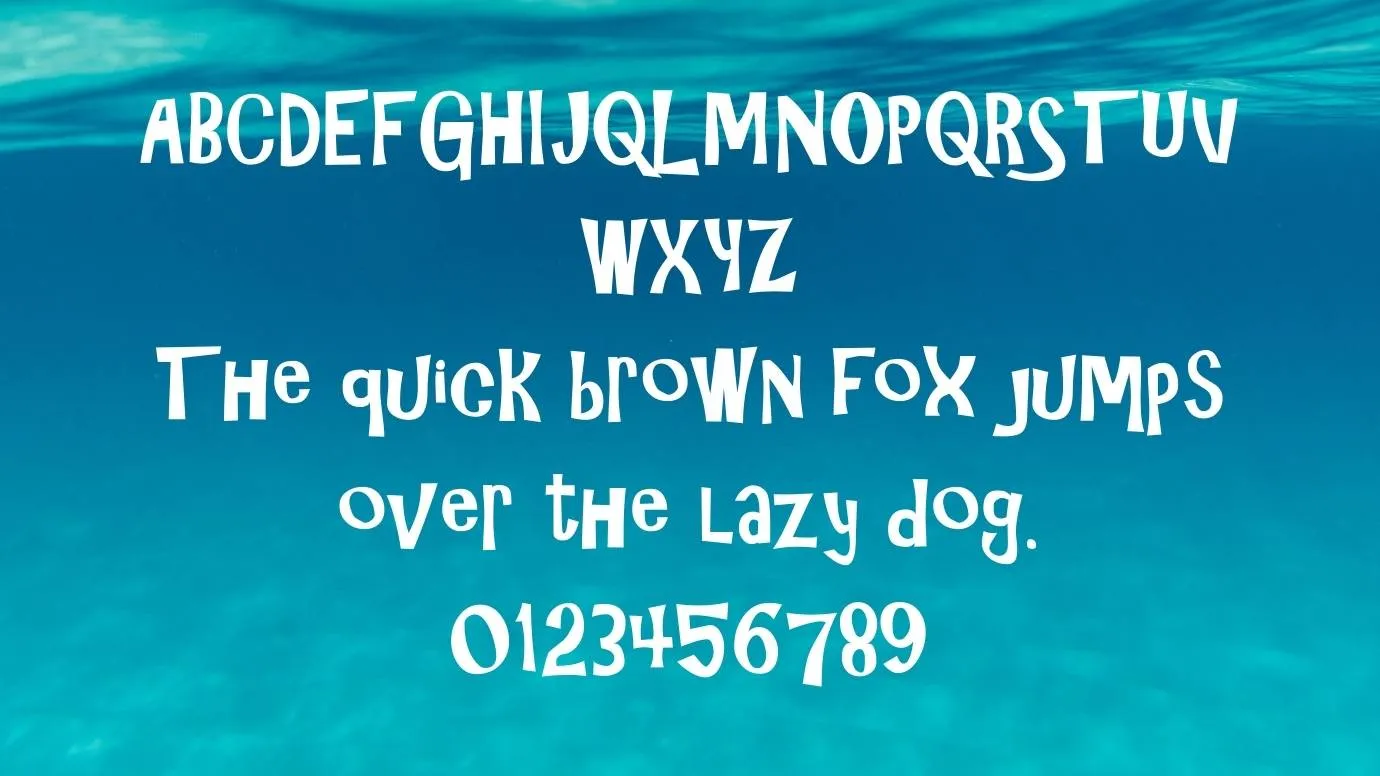
If you are searching for incredible display typefaces you are in the right place. In this post, we are introducing a very stylish and attractive typeface to use in the Display designs known as the AR Christy font. It belongs to the display and decorative typefaces. Such an amazing name of the beautiful font. This font family has an amazing look, more clearly, and styles that meet all of the design needs. This font family is available in 17 different languages throughout the world, including Dutch, English, German, and Albanian. Furthermore, it contains almost 150 distinct characters.
Designer of AR Christy Font
It was designed and released by the famous industry of font EnStep Incorporated in 1997. This foundry is one of the senior foundries of fonts.
The font family consists of one style but it includes all the characters including uppercase and lowercase letters, numbers, and other currency symbols.
View of AR Christy Font
| Name | AR christy Font |
| Style | Display |
| Designer | EnStep Incorporated |
Who created AR Christy font?
It was created by EnStep Incorporated in 1997. It is a famous foundry of fonts and comes in the senior foundries working the in typographic industries.
What font is like AR Christy font?
There are a lot of fonts that are similar to this typeface but the one which is closer to this typeface is Chunkfive Roman Font.
What type of font is AR christy?
It is a very stylish and attractive typeface to use in the Display designs known as the AR Christy typeface. It belongs to the display and decorative typefaces.